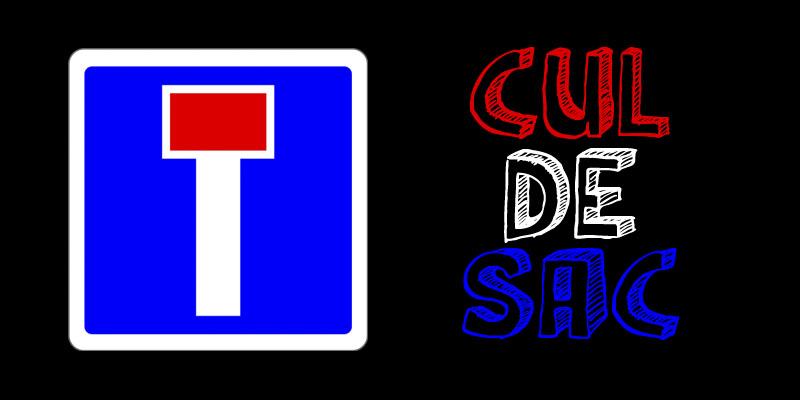
Cul De Sac
Cul De Sac is a beautiful cartoon-like font. It was hand drawn, using an old fashioned pen and India ink. Use it for your ads, posters and websites.